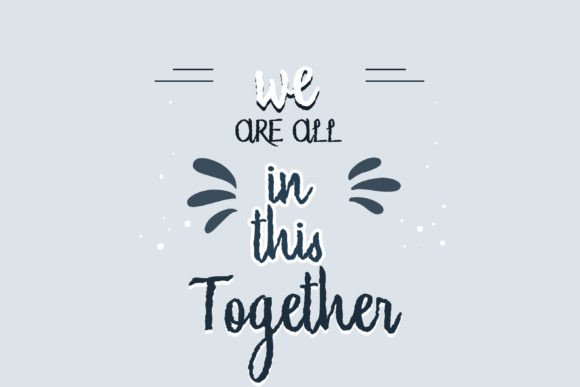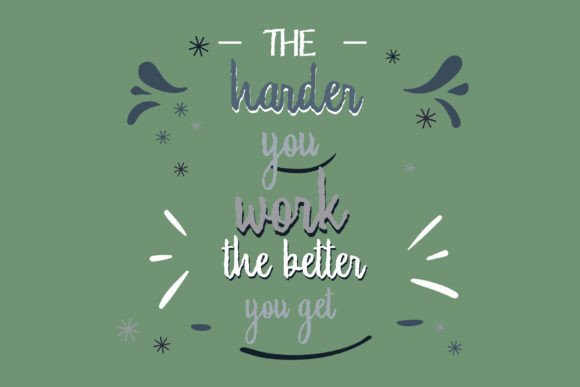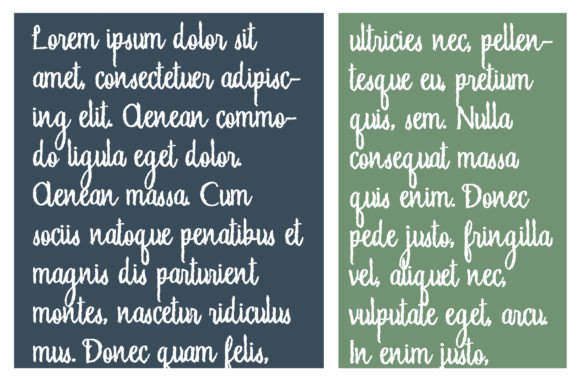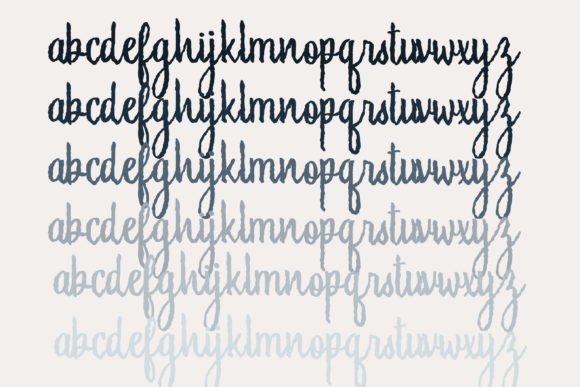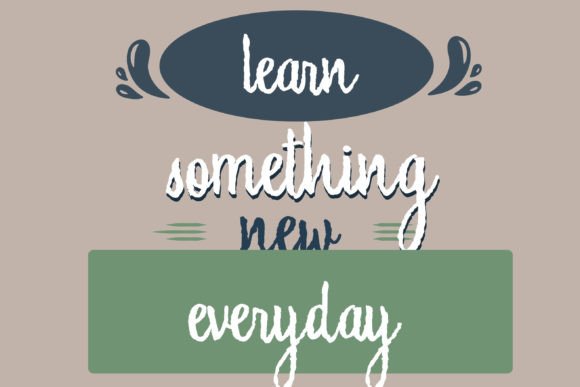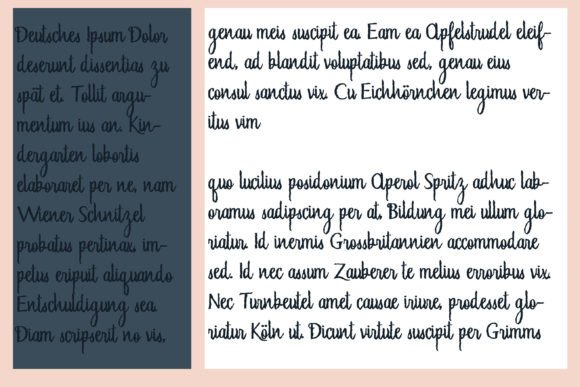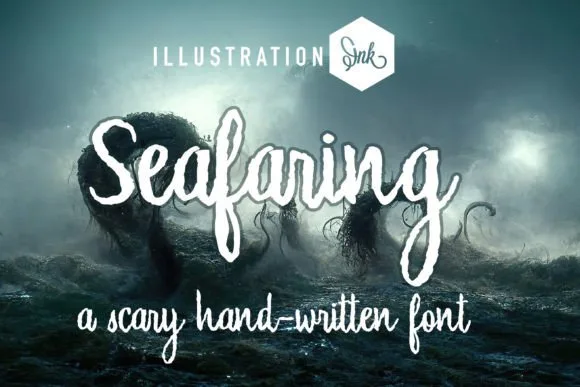
Seafaring Font
About Seafaring Font
**Introducing Seafaring: A Spooky and Quirky Handwritten Script Font**
The “Seafaring” handwritten script font offers a unique blend of spooky and quirky aesthetics, making it an ideal choice for various Halloween-themed projects and creative endeavors. With its rough textures and distinct character, this font adds a playful and eerie touch to your designs. Here are some creative ways to incorporate “Seafaring” into your Halloween projects:
1. **Halloween Party Invitations:** Design eye-catching and creepy invitations for Halloween parties, haunted houses, or costume gatherings. “Seafaring” sets the tone for a fun yet spooky celebration.
2. **Trick-or-Treat Signage:** Create signage, posters, and banners for trick-or-treat events or haunted trails in your neighborhood. “Seafaring” adds a sense of whimsy to the spooky festivities.
3. **DIY Halloween Decorations:** Craft DIY decorations such as spooky banners, hanging signs, and window decals using “Seafaring” typography. Transform your home into a haunted masterpiece.
4. **Creepy Greeting Cards:** Design eerie and humorous Halloween greeting cards featuring spooky messages and illustrations. “Seafaring” adds a playful and wicked charm to your cards.
5. **Cute Halloween Merchandise:** Develop merchandise like T-shirts, mugs, and tote bags with adorable Halloween-themed designs and phrases in “Seafaring” font. Appeal to those who love spooky cuteness.
6. **Pumpkin Carving Templates:** Create pumpkin carving templates or stencils with spooky typography using “Seafaring.” Help others carve unique and playful pumpkin designs.
7. **Children’s Halloween Books:** Illustrate and design children’s books with friendly and quirky Halloween characters and stories. Use “Seafaring” for playful text and titles.
8. **Haunted Attraction Branding:** Enhance the branding of haunted houses, escape rooms, or Halloween-themed events with spooky but approachable visuals featuring “Seafaring” typography.
9. **Candy Packaging:** Design labels and packaging for homemade Halloween treats or candies. “Seafaring” adds a fun and homemade touch to your sweets.
10. **Social Media Graphics:** Create engaging social media posts, banners, and profile images for Halloween-themed promotions, events, and contests using “Seafaring.”
11. **Halloween Art Prints:** Craft whimsical and spooky art prints featuring Halloween characters, creatures, and quotes in “Seafaring” font. Perfect for seasonal decor.
12. **Halloween-Themed Menus:** Design festive and playful menus for Halloween-themed parties, restaurants, or bakeries. “Seafaring” adds a fun twist to your food descriptions.
13. **Haunted Trail Maps:** Develop maps or brochures for haunted trails and attractions. Use “Seafaring” to create charming guides for visitors.
14. **Children’s Halloween Crafts:** Design templates and materials for kids’ Halloween crafts, including masks, coloring pages, and activity sheets with “Seafaring” elements.
15. **Spooky Web Graphics:** Create web graphics, banners, and headers for Halloween-themed websites or blogs. “Seafaring” adds a touch of playful spookiness to your online presence.
“Seafaring” is a font that captures the essence of Halloween with its quirky and spooky appeal. It’s a versatile choice for projects that require a playful and eerie touch, making it suitable for a wide range of creative endeavors during the Halloween season. Whether you’re designing for parties, decorations, merchandise, or digital content, “Seafaring” is ready to infuse your designs with a delightful and haunting charm.